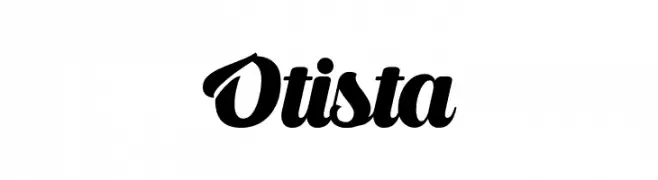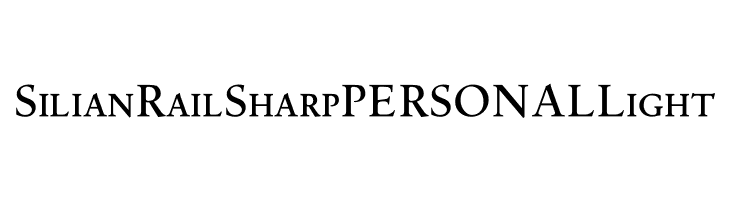
A modern, geometric italic font with clean lines and rounded corners.
A classic serif font with sharp, angular serifs and a dynamic, authoritative appearance.
A modern, geometric sans-serif font with tall, narrow characters and uniform stroke width.
A bold, gothic-inspired font with sharp, angular lines and a dramatic style.
A bold, dynamic script font with flowing strokes and high contrast.
A bold, jagged font with sharp, irregular edges for a dramatic effect.
A bold, gothic-inspired font with sharp, jagged edges and dynamic styling.
A bold, gothic font with sharp, angular lines and dramatic serifs.
A modern serif font with sharp serifs and high contrast strokes.
A modern, geometric font with clean lines and a futuristic style.